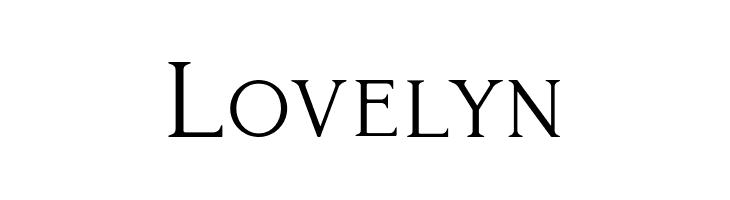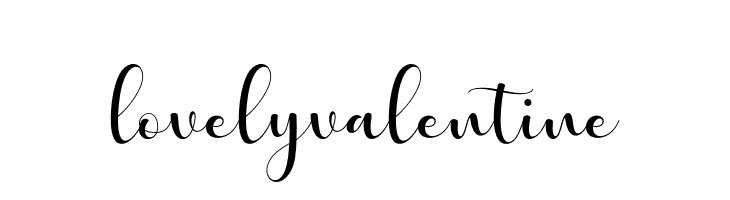
A romantic and elegant script font with flowing, cursive strokes.
An elegant, flowing script font with ornate uppercase and readable lowercase letters.
A decorative font made of heart shapes, ideal for romantic or playful designs.
A dynamic and expressive script font with flowing, interconnected letterforms.
A bold, expressive script font with a hand-drawn, artistic style.
A playful, handwritten font with tall, narrow characters and whimsical elements.
A bold, cursive font with a handwritten, flowing style.
A playful handwritten font with heart embellishments for a whimsical touch.
A playful, heart-embellished font with a hand-drawn, whimsical style.